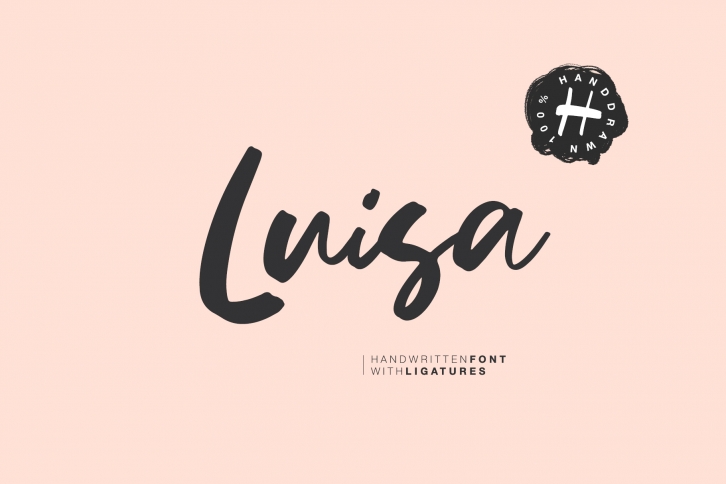
LUISA SCRIPT is a great font that was designed by MediaLab. Imagine the amount of combinations you can create using this font! The archive is 5.17 MB and it was released on December 3, 2018. LUISA SCRIPT looks beautiful on wedding invitations, greeting cards, logos, posters, labels, t-shirt designs, logos, business cards and is perfect for use in ink or watercolor works, fashion, magazines, packaging and food menus, children's books and more!